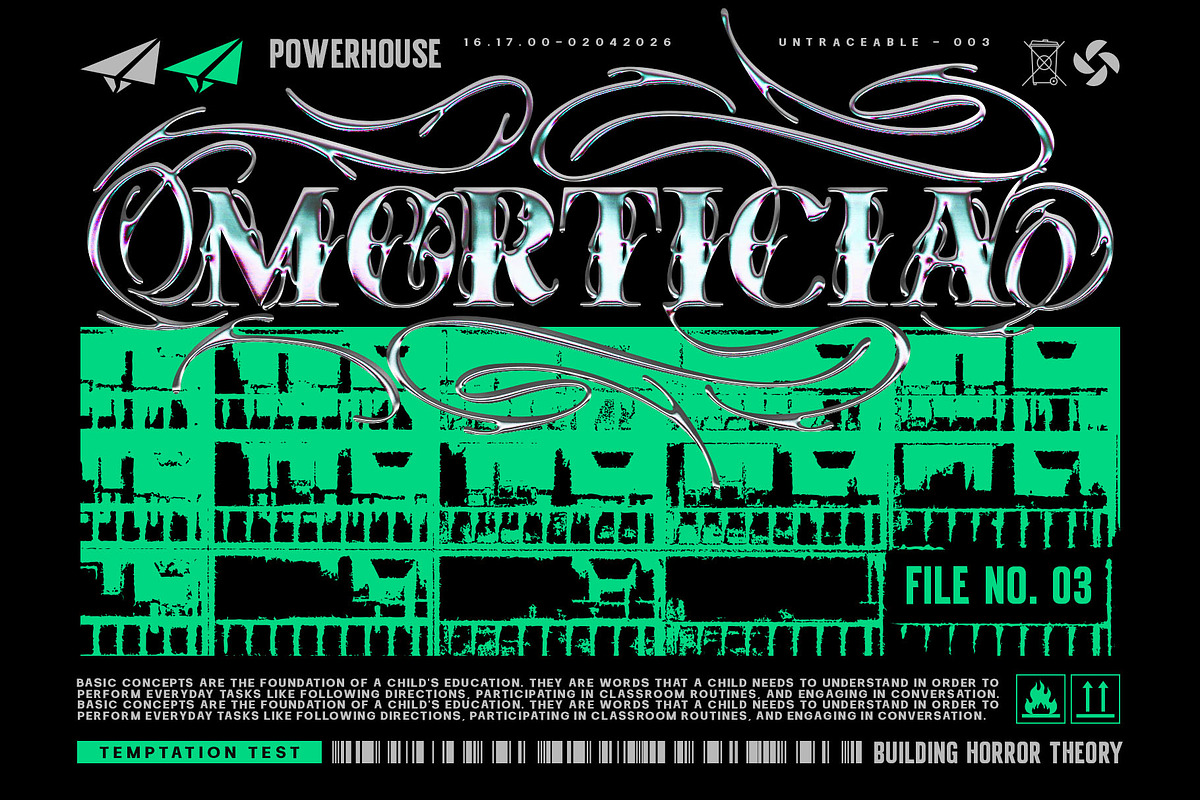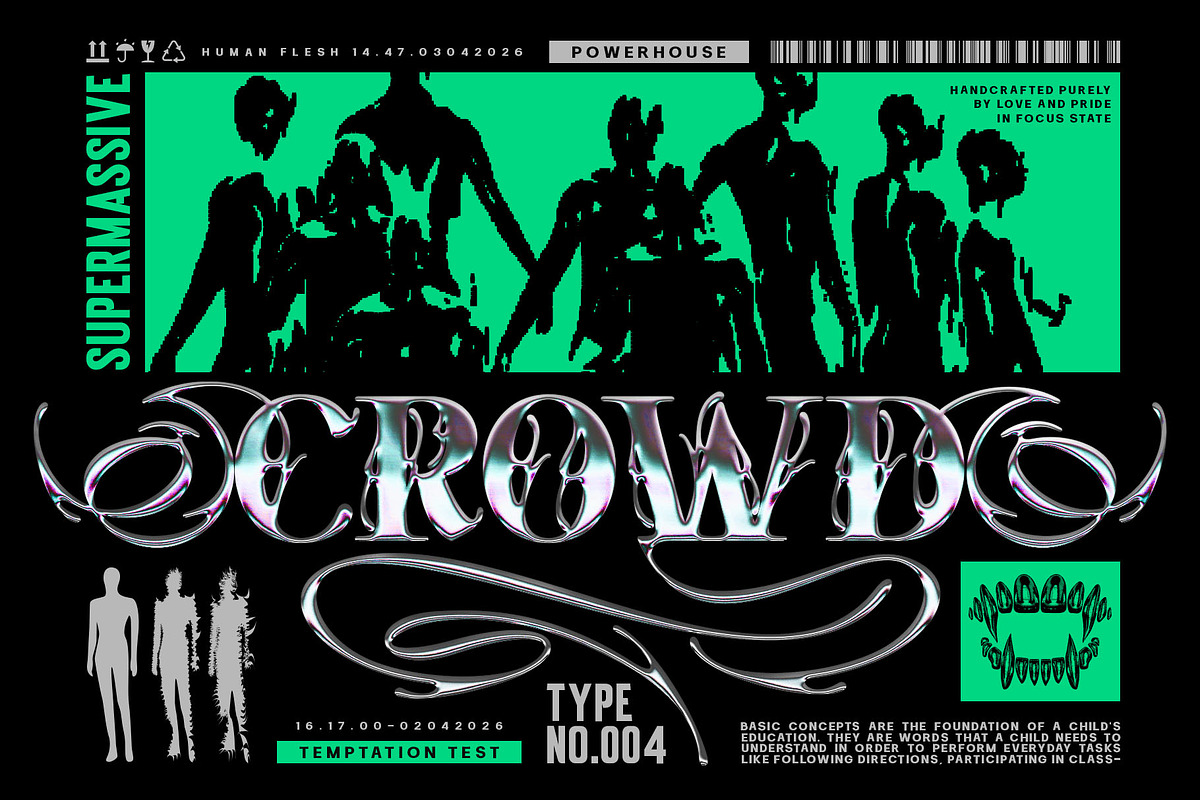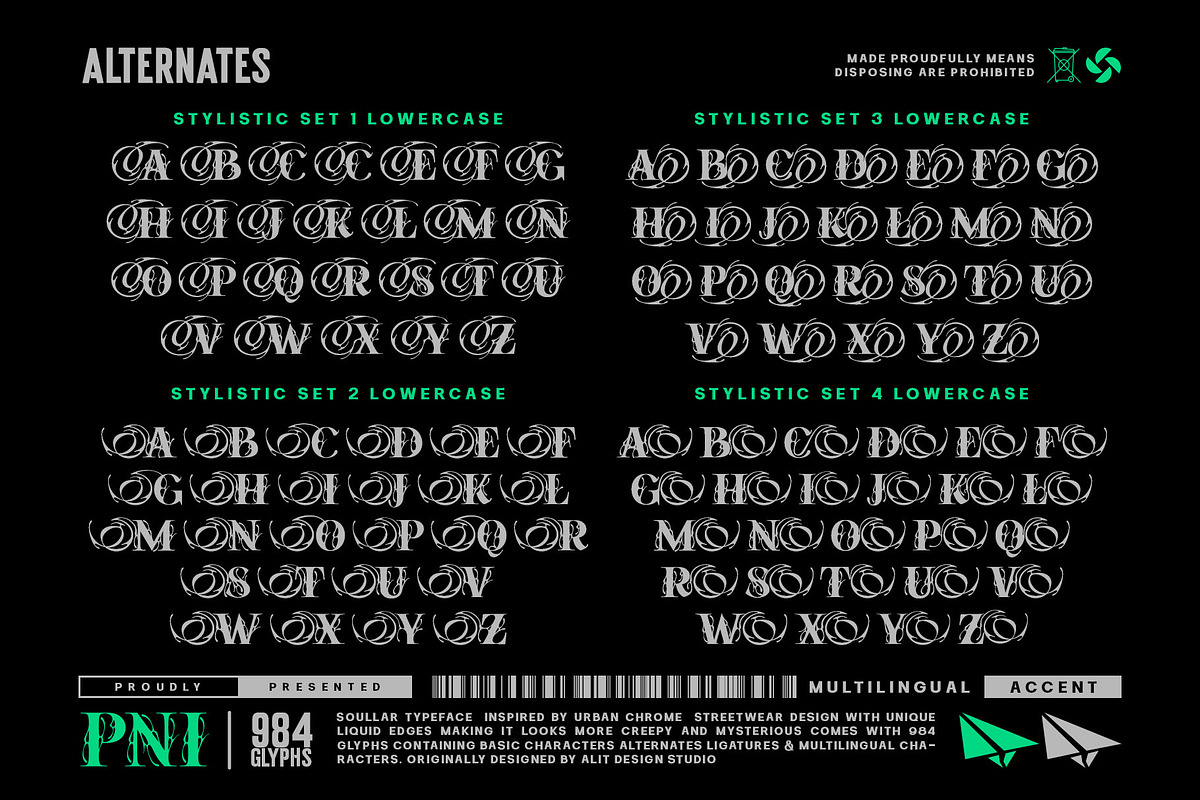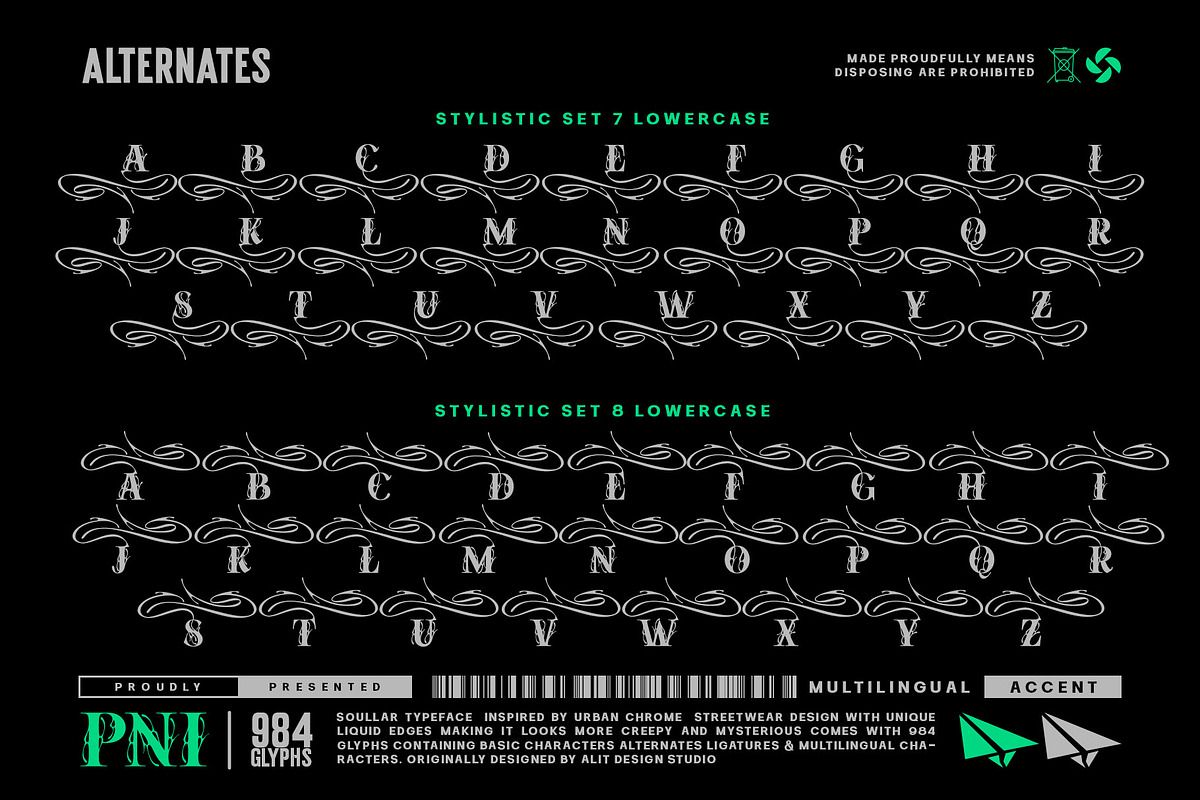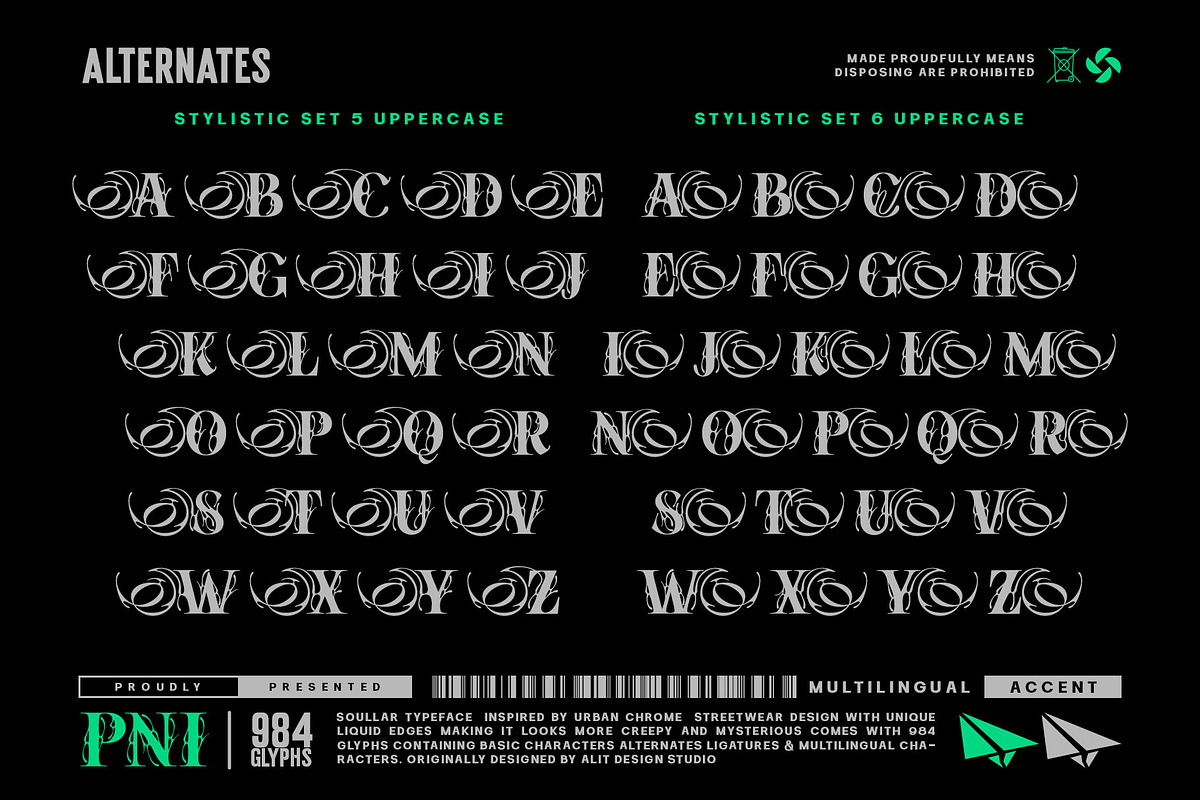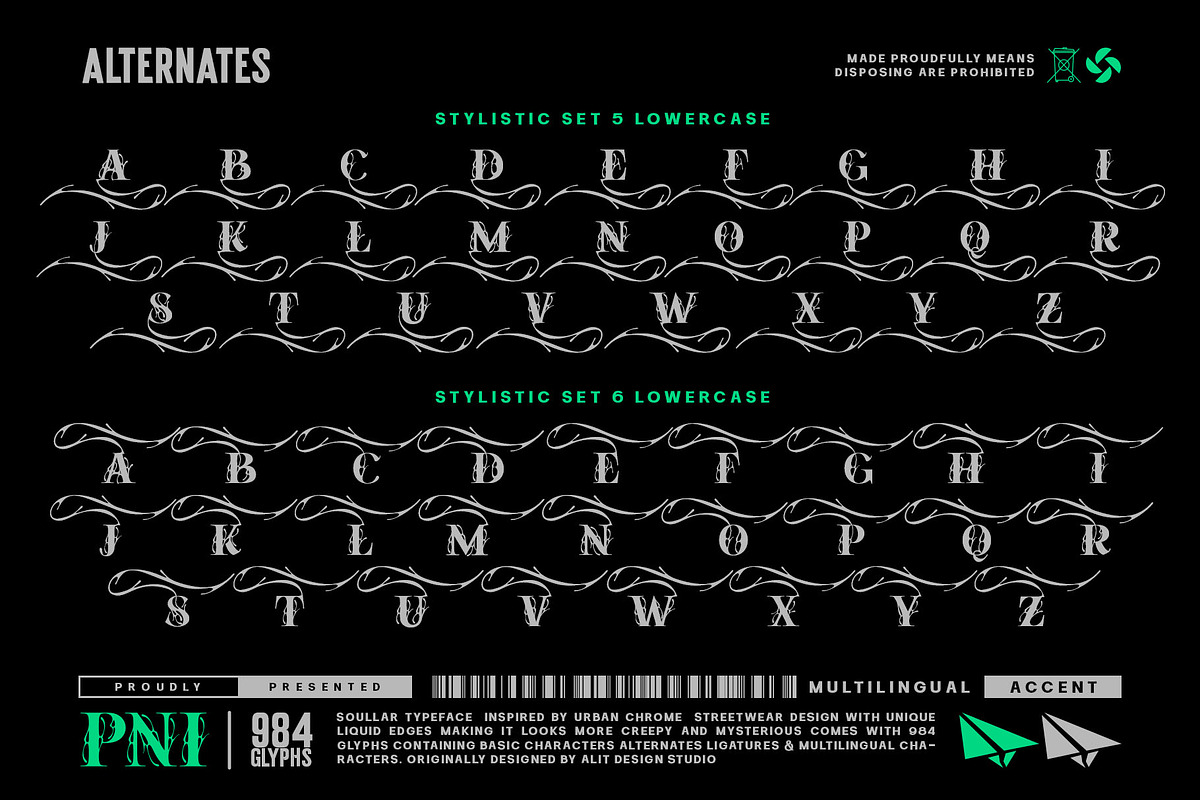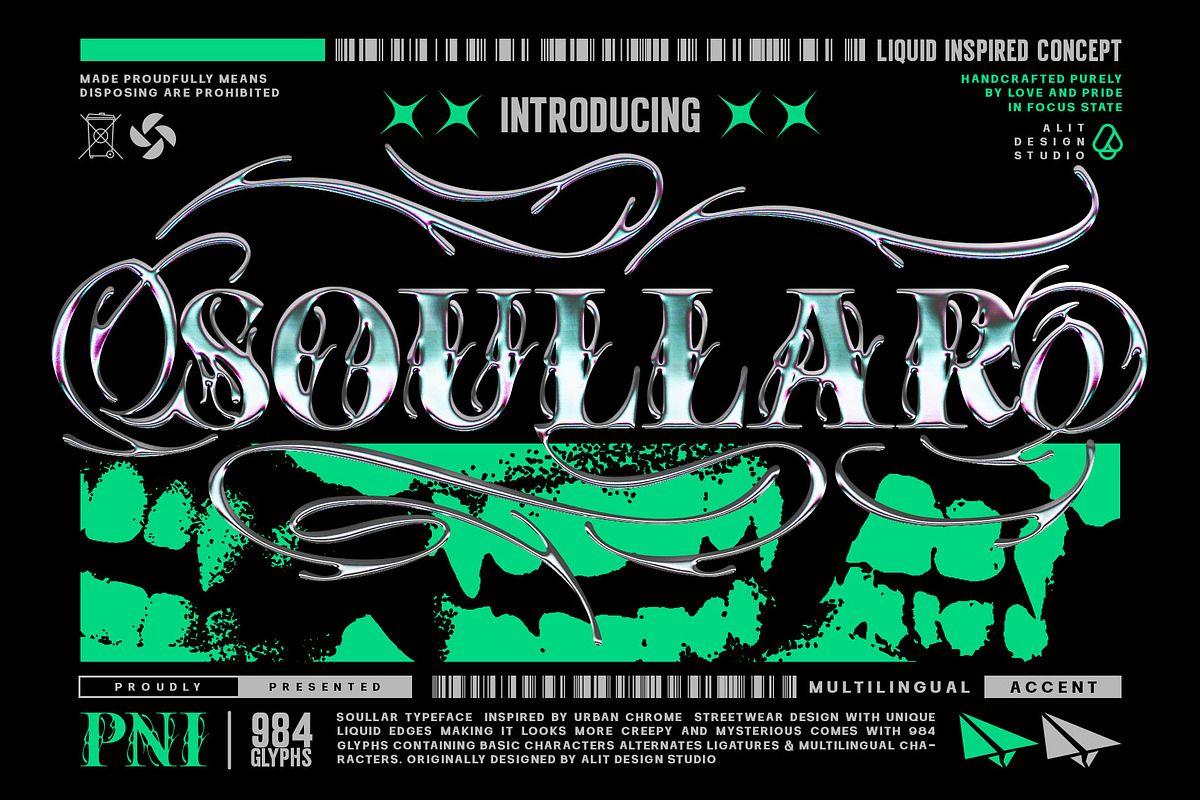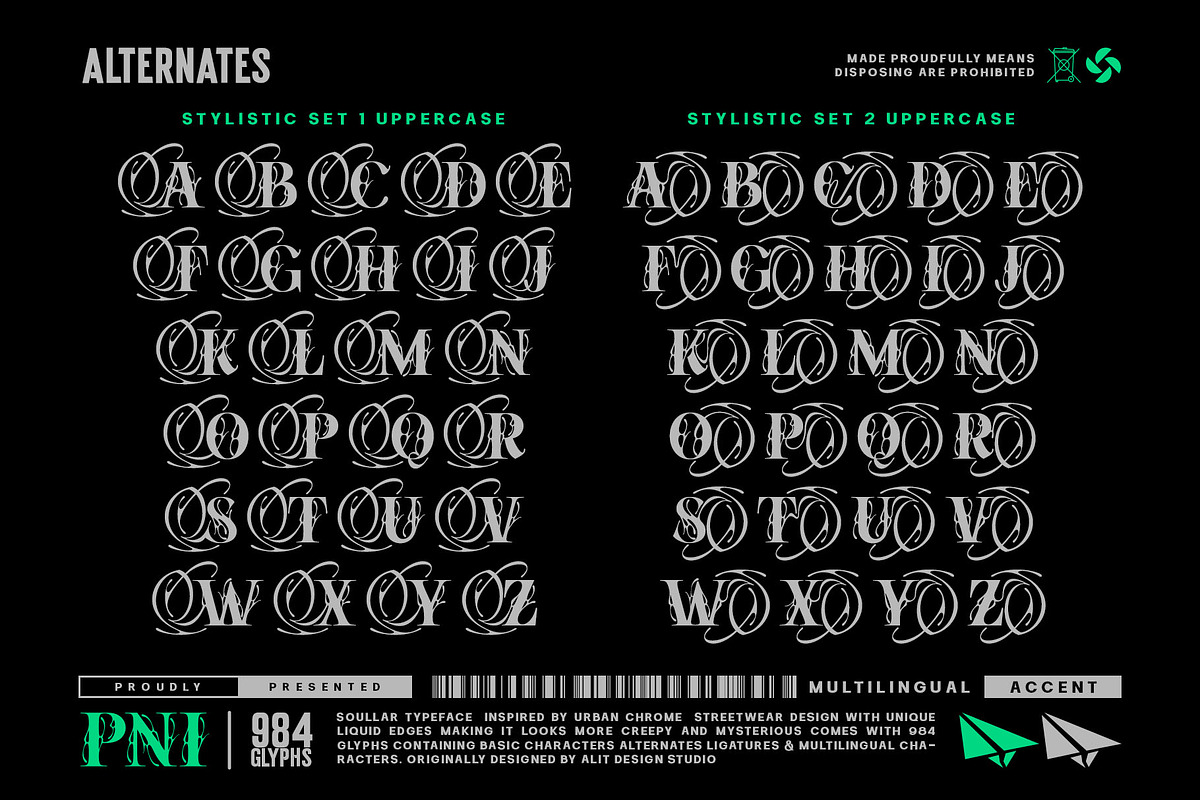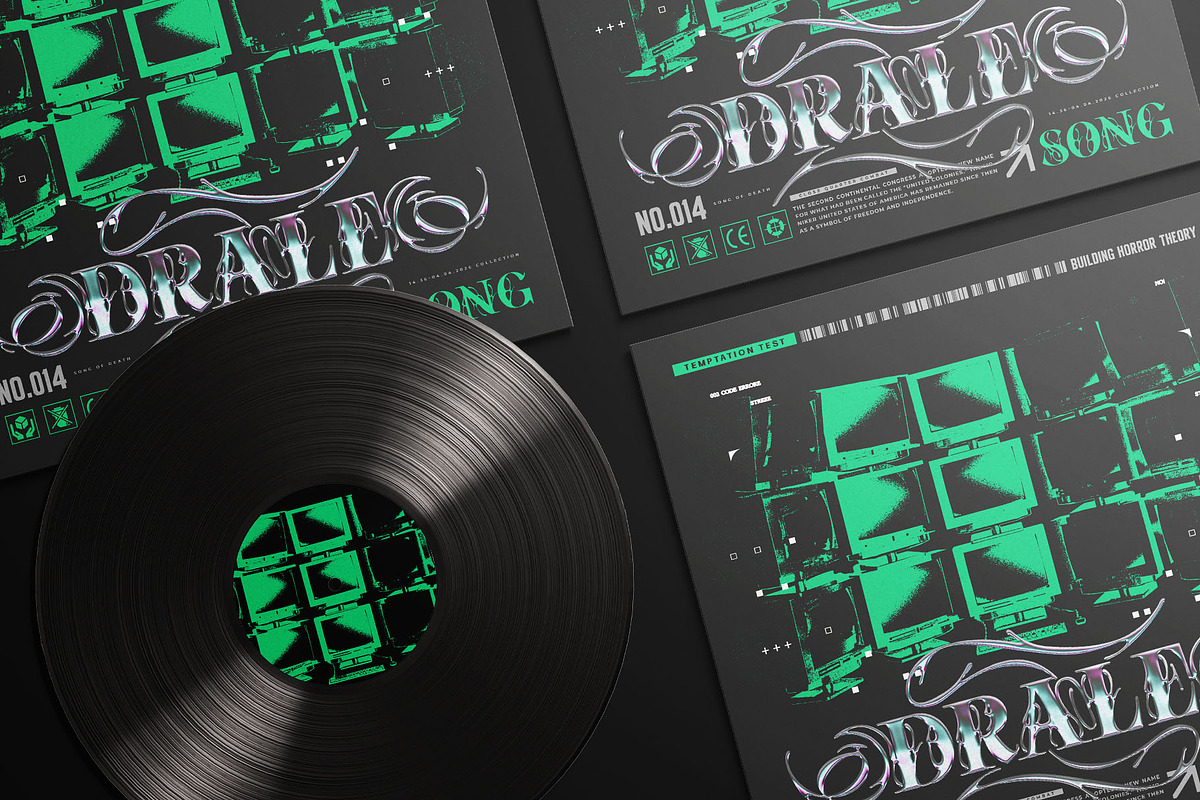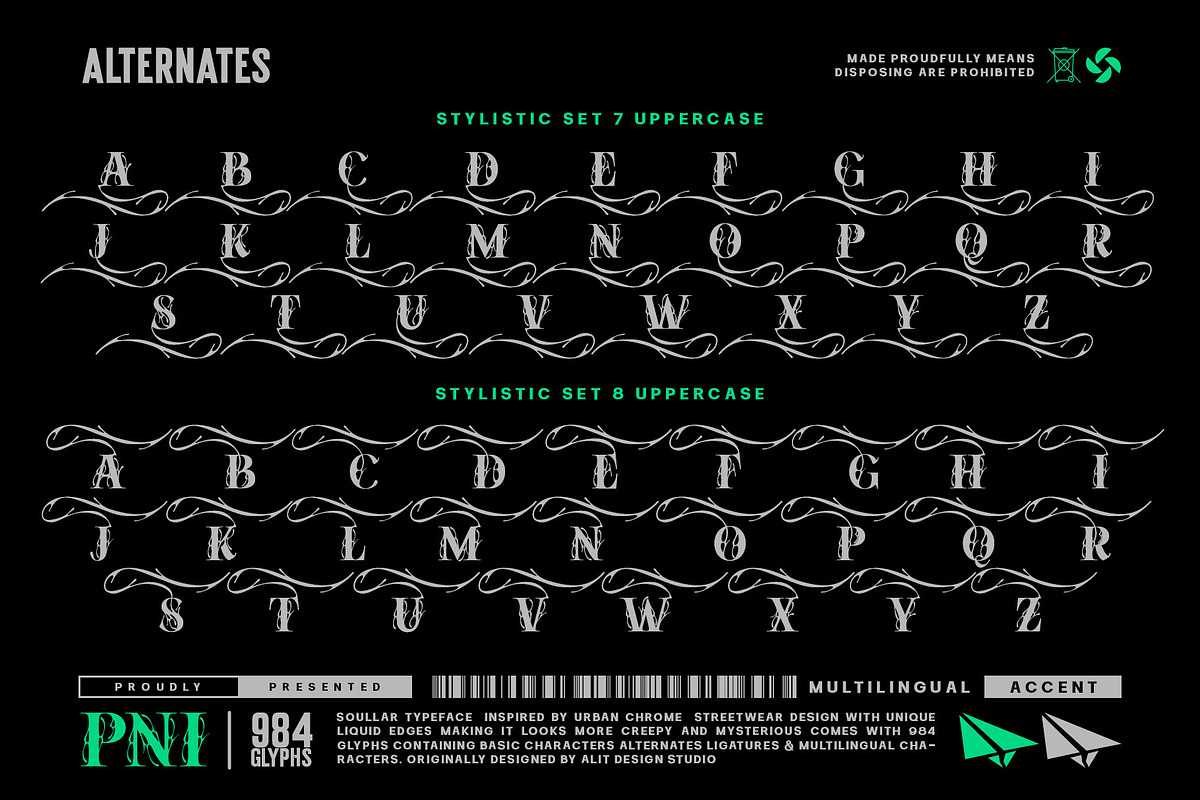
Soullar Typeface
Soullar Typeface: The Liquid Chrome Edge for Modern Streetwear
Unlock the dark, fluid energy of the streets with Soullar, a premium typeface designed at the intersection of urban chrome aesthetics and mysterious liquid textures. Originally crafted by Alit Design Studio, Soullar isn’t just a font—it’s a visual statement for those who dare to push the boundaries of modern typography.
Inspired by the reflective, organic shapes of molten metal and high-end streetwear culture, Soullar features unique "Liquid Edges" that create a creepy yet sophisticated atmosphere. Whether you are designing a high-profile brand identity, edgy apparel, or immersive digital art, this font provides the "mysterious chrome" look that is currently dominating the design world.
Why Choose Soullar?
- Massive Versatility: With an incredible library of 984 glyphs, you have limitless creative control.
- Dynamic Stylistic Sets: Soullar comes packed with 10 Stylistic Sets for both Uppercase and Lowercase characters, allowing you to customize swirls, liquid tails, and ornaments to fit your layout perfectly.
- The Chrome Aesthetic: Optimized for chrome effects, bevels, and metallic gradients, making it the go-to choice for "Y2K," "Cyberpunk," or "Modern Gothic" designs.
- Multilingual Excellence: Full support for various accents and characters, ensuring your message is heard worldwide.
What’s Included?
- Uppercase & Lowercase: Distinct, high-impact characters.
- Numbers & Punctuation: Consistent liquid styling across all symbols.
- Vast Alternates & Ligatures: Handcrafted variations to keep your designs unique.
- Streetwear Brands: Logos, hoodies, and t-shirt graphics.
- Music Industry: Album covers, tour posters, and DJ branding.
- Editorial Design: Bold magazine headers and digital zines.
- Packaging: Luxury products with a mysterious or dark twist.
Step into the future of urban design. Soullar Typeface brings the perfect balance of "creepy" and "cool" to your creative arsenal.